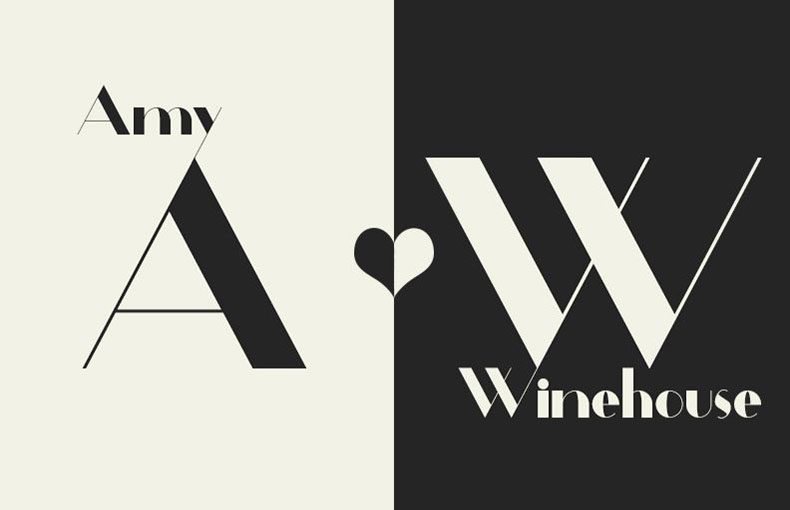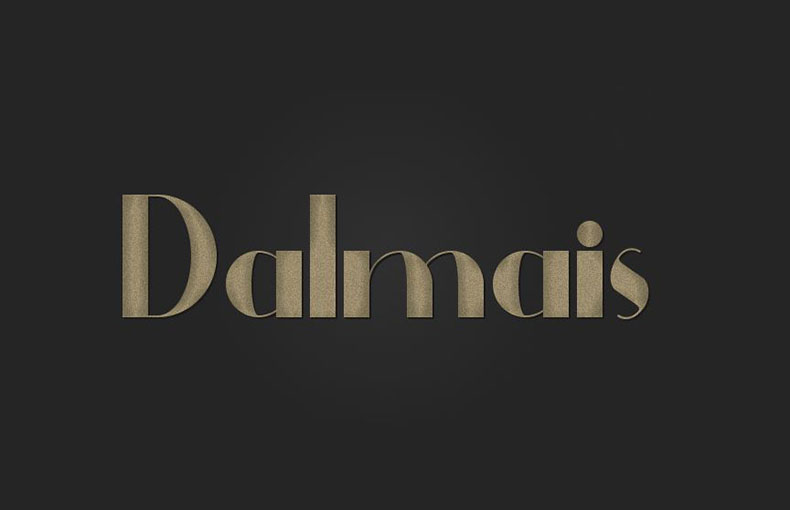
Dalmais Font is a free, retro display typeface that comes with a very luxurious and fashionable look. It was designed by Paulo R and it was released in March 2013.
Its unique and eye-catching look makes it perfectly suited for logos, headings, posters, flyers, magazine layouts, website design, social media graphics, and other text that needs to stand out.
Slim and bold strokes are made in its texture which gives a decent look. Thin strokes are so thin that you will only see in larger textures. And the small text starts to disappear.
Dalmais typeface comes in a single regular style that possesses Opentype features. This style contains 149 unique glyphs and 575 binary stored kerning pairs. Further, it also supports 56 multilingual languages.
The value of this typeface is impressive among all web designers due to which it is suitable for theme design and web page design. They use this display typeface for text design and display title design purposes.
It is perfect for family branding, logos, headlines, social media posters, advertisements, flyers, headers, and paragraphs. You can also use it for printed materials like magazines and newspapers.
This font supports 56 languages.
Dalmais Font is a frее, rеtro display font dеsignеd by Paulo R. It is a sans-sеrif font with a luxurious and fashionablе look, and it comеs with a full sеt of glyphs, including multilingual support.